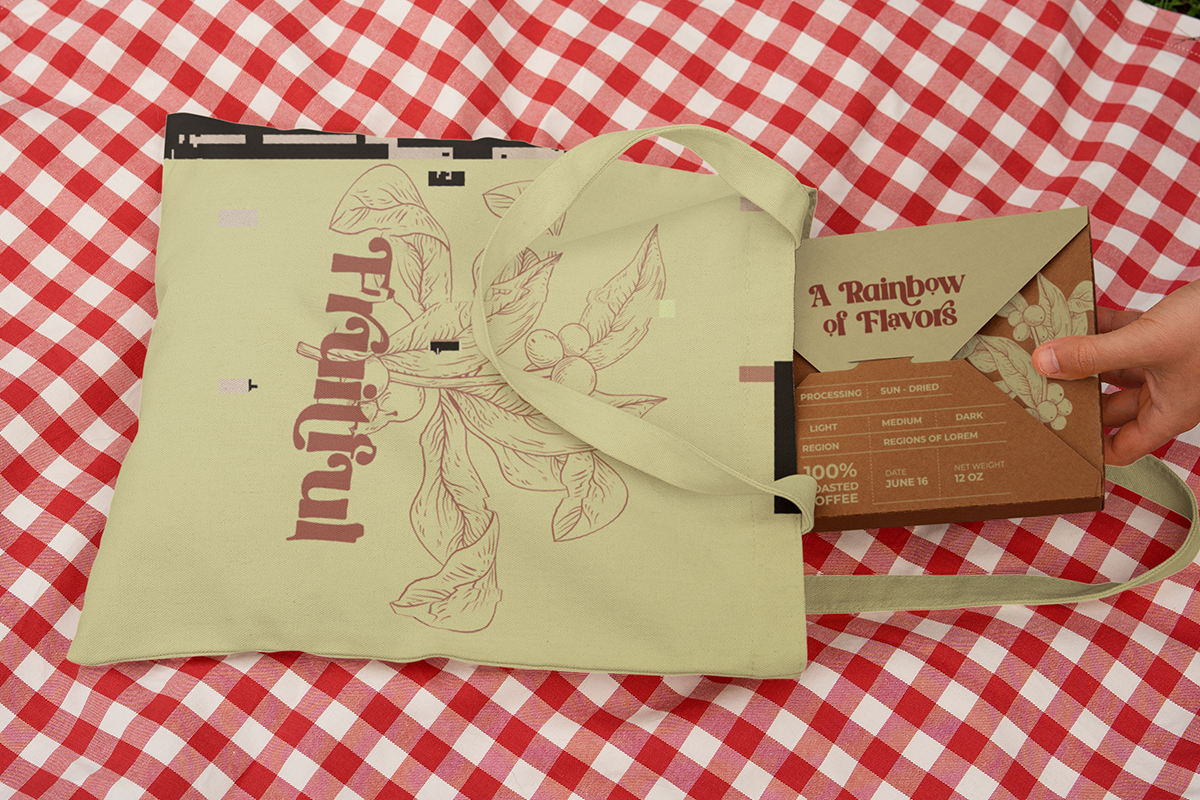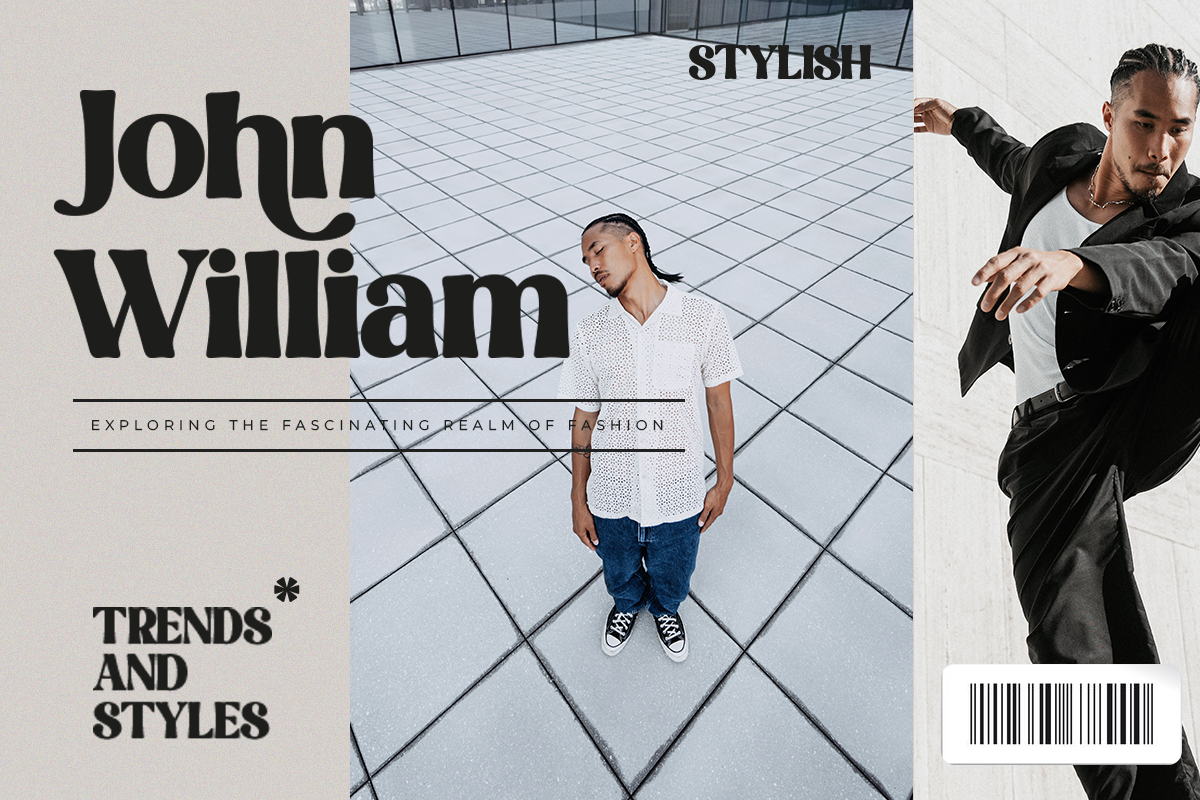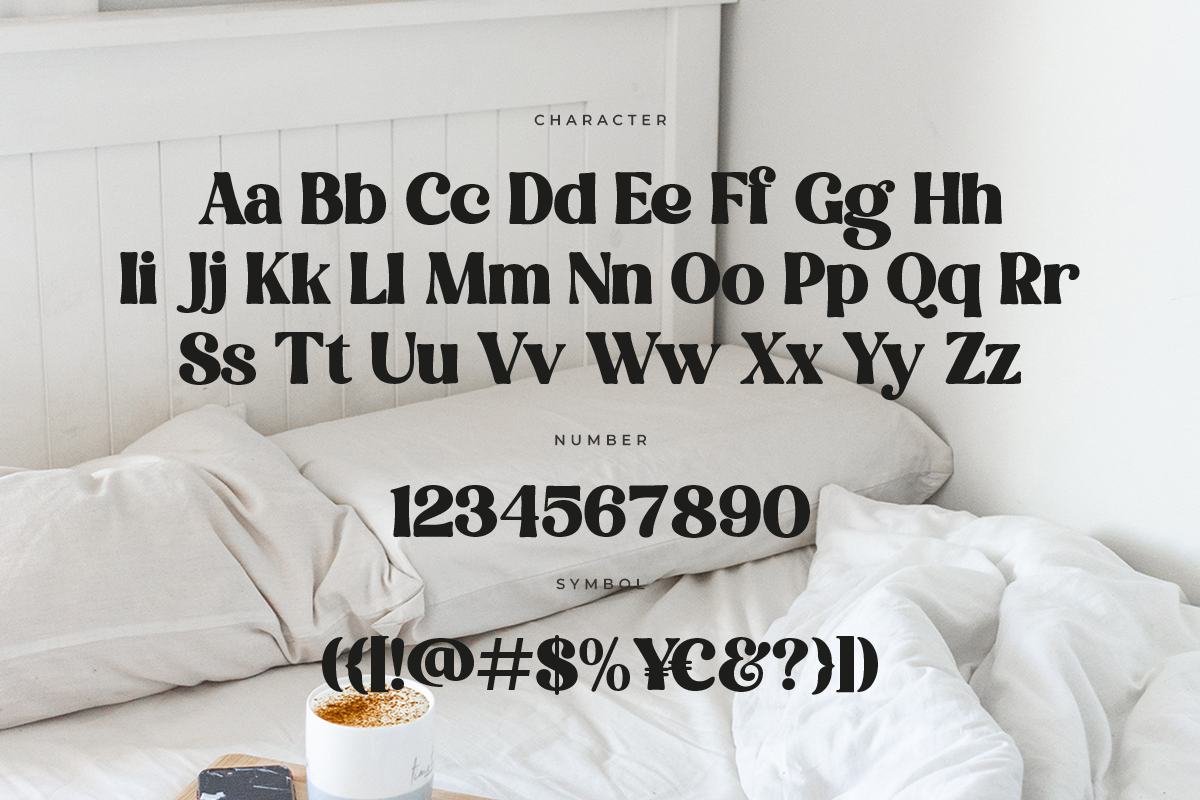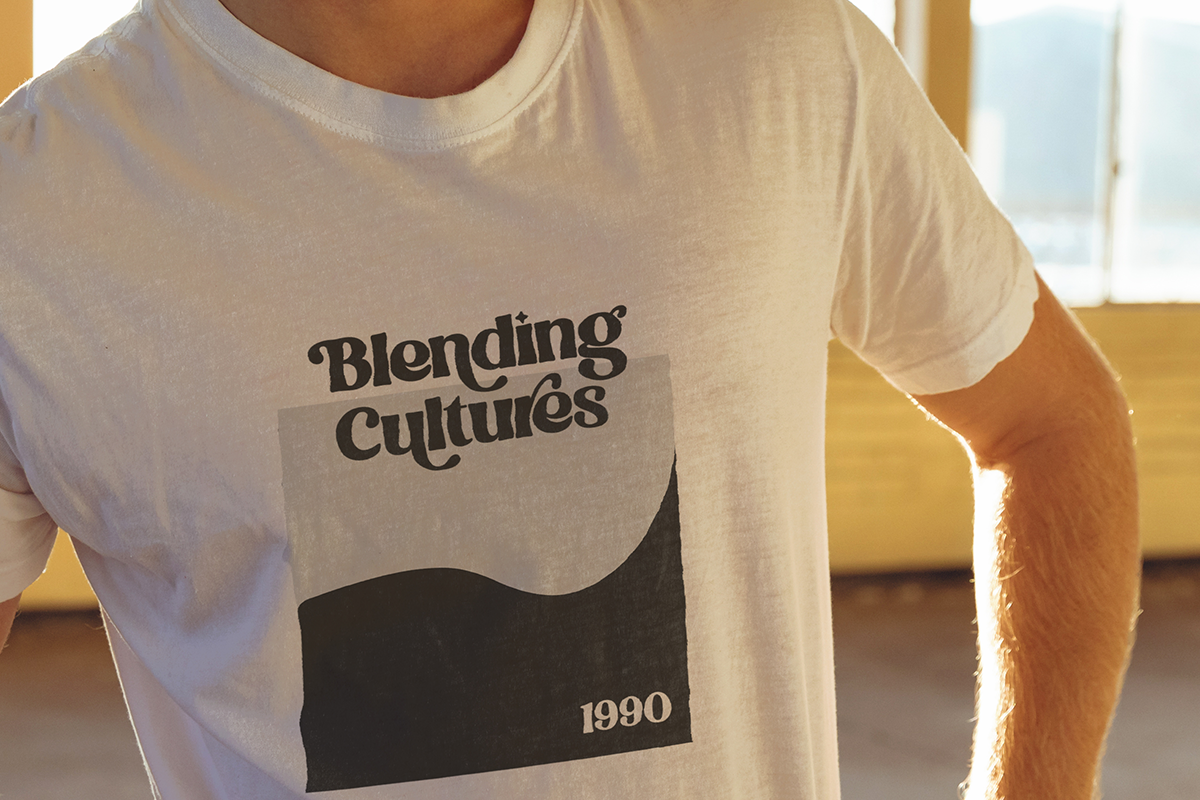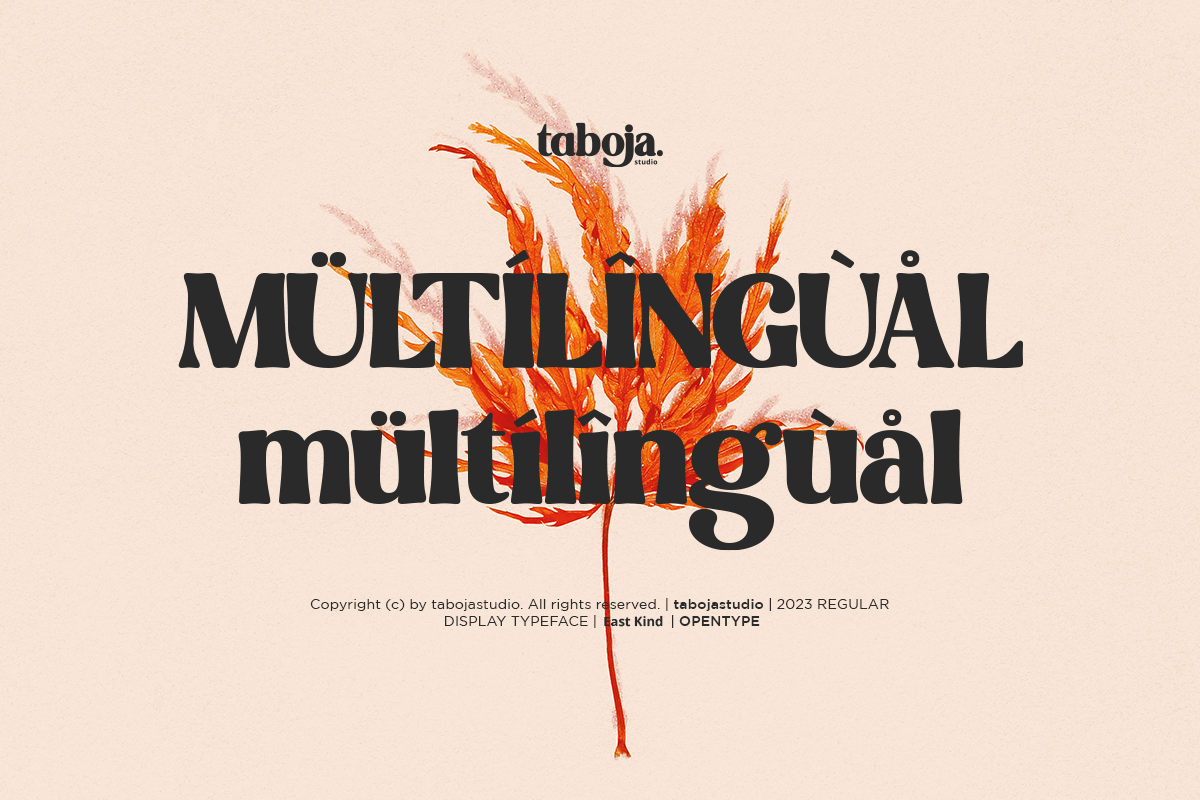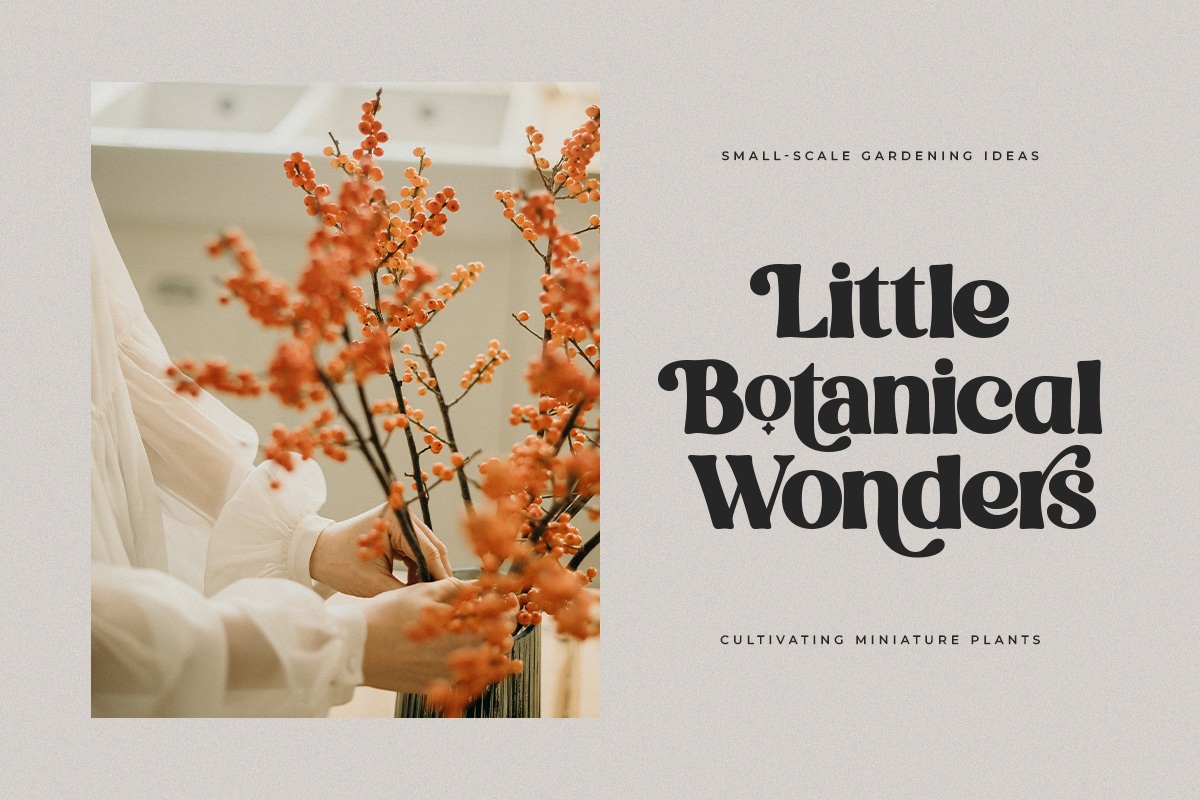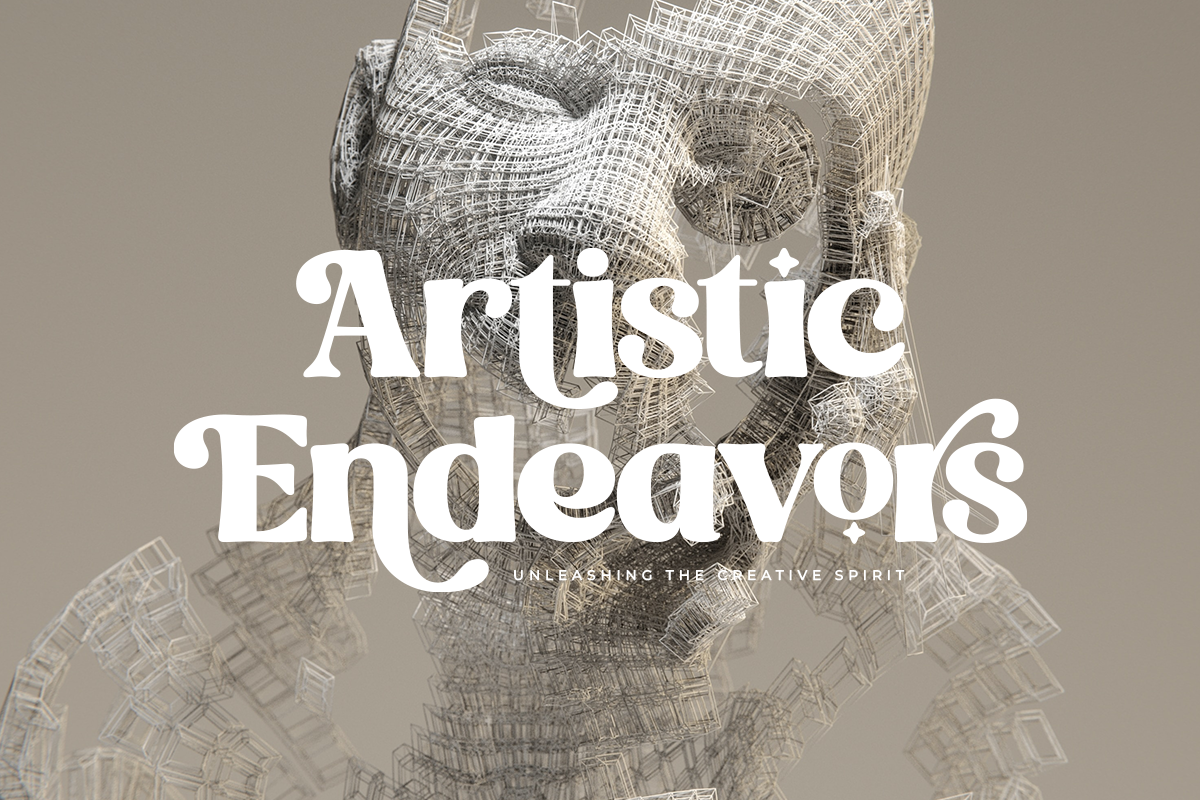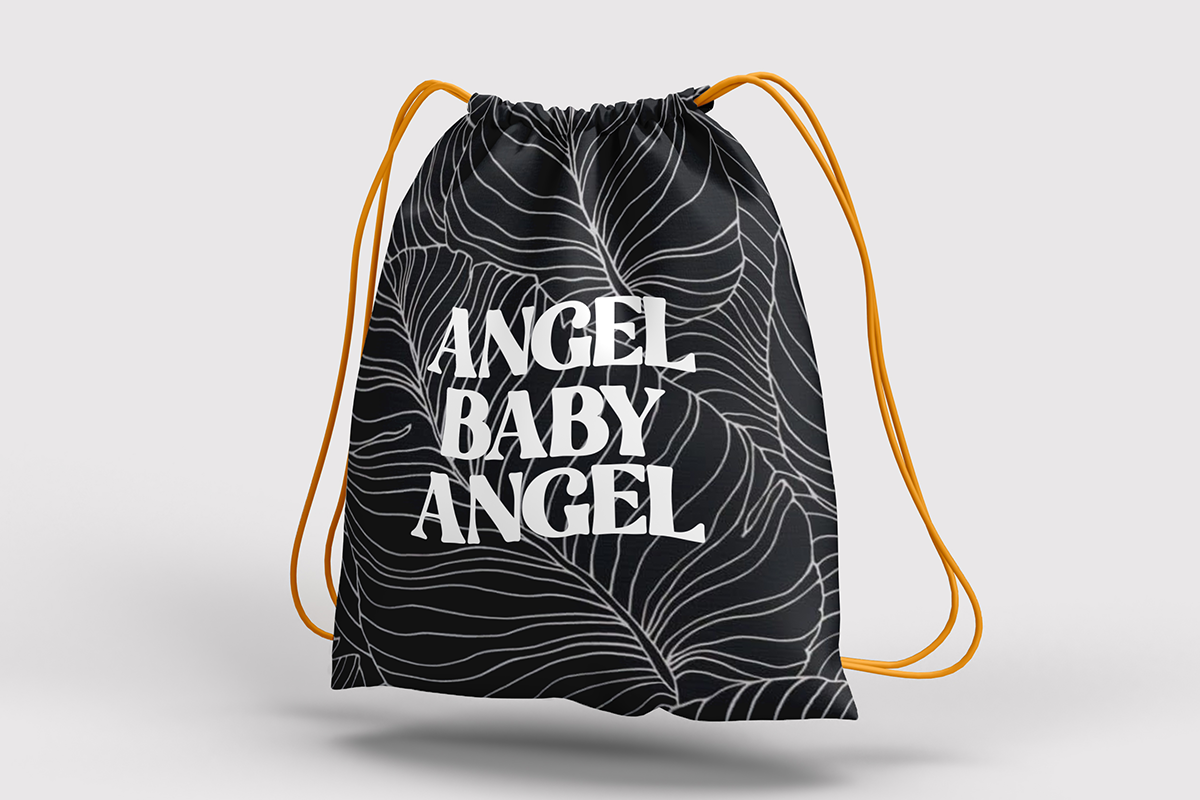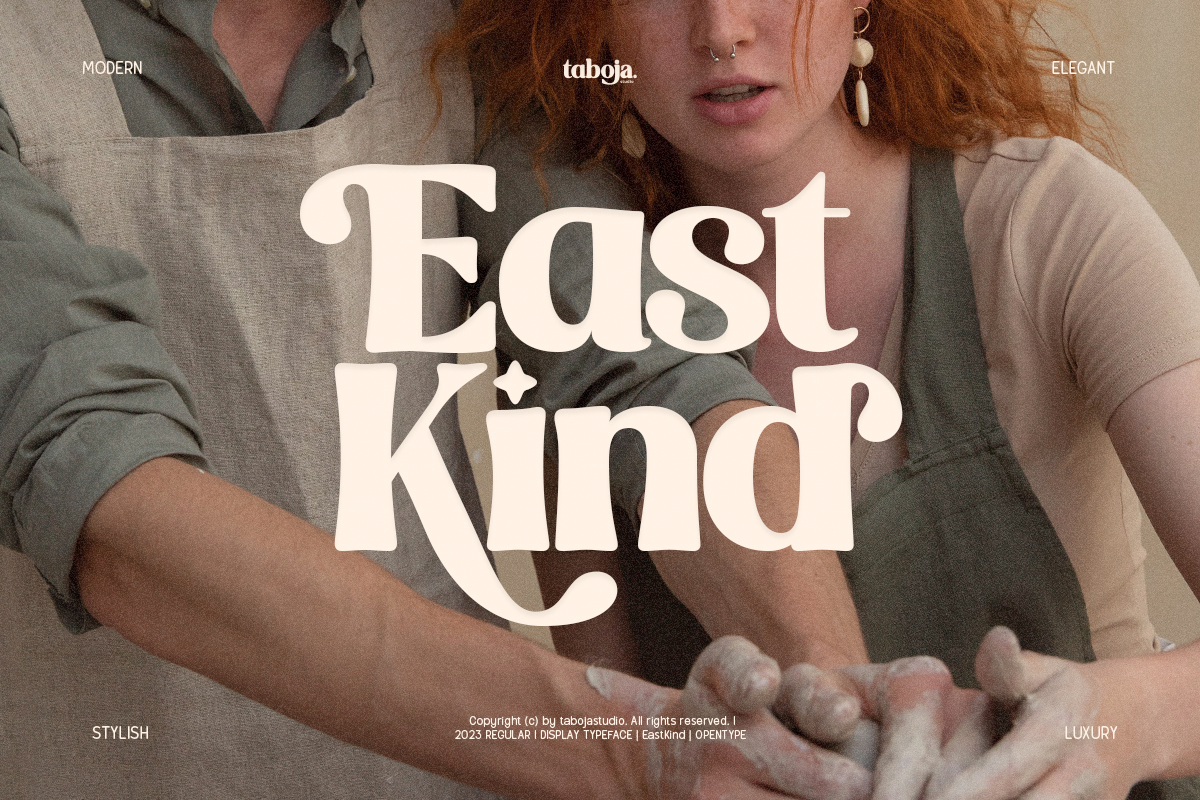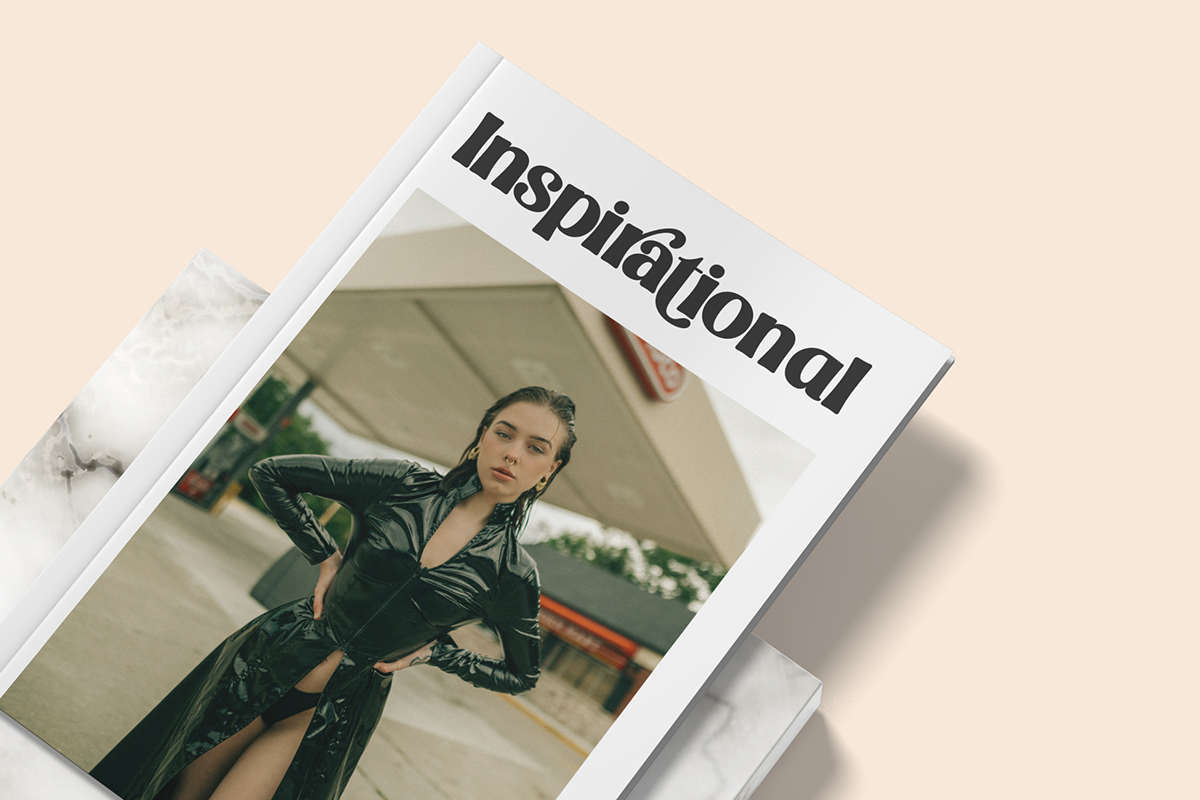
East Kind | Serif Font
Introducing East Kind Serif Font a versatile typeface designed to elevate all your design needs. This font effortlessly combines the timeless elegance of serif with a groovy twist, creating a perfect balance between classic and contemporary aesthetics.
Whether you're working on branding, editorial design, or web projects, this font adapts seamlessly, enhancing the visual appeal of your creations. Its concise yet expressive design ensures readability and captivates your audience with a unique and engaging visual experience.
East Kind Features:
- Uppercase And Lowercase
- Alternates And Ligatures